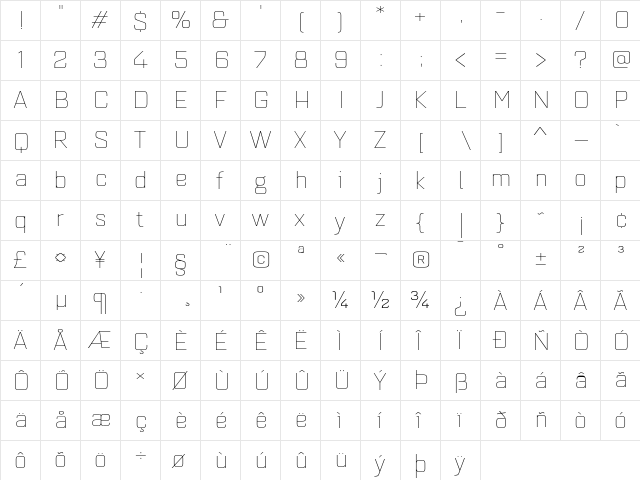
Quarca Ext Thin Font Preview
Quarca Ext Thin
Quarca Ext Thin Font Details
| Style | Ext Thin |
Design Context for Quarca Typeface
Quarca offers clean, dependable letterforms without strong stylistic allegiance, making it a practical choice for designers who need flexibility. The delicate stroke weight brings airiness and refinement to layouts.